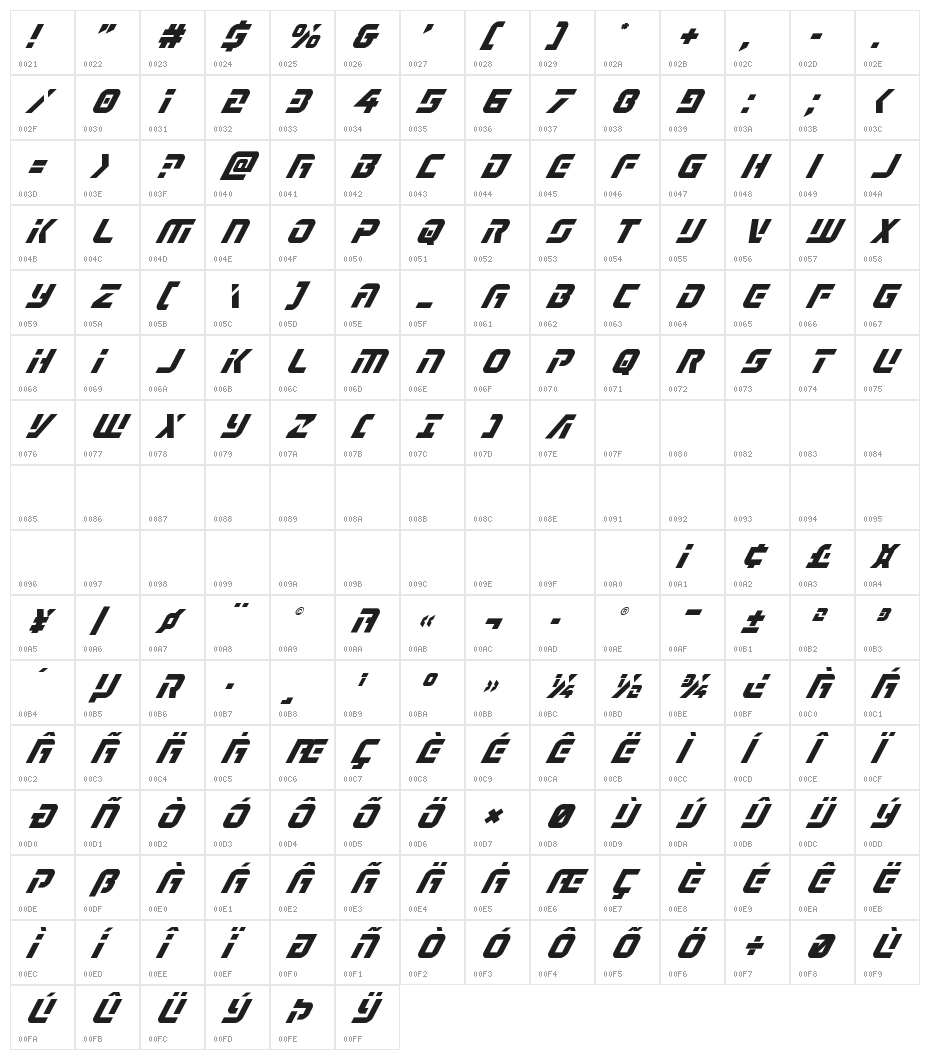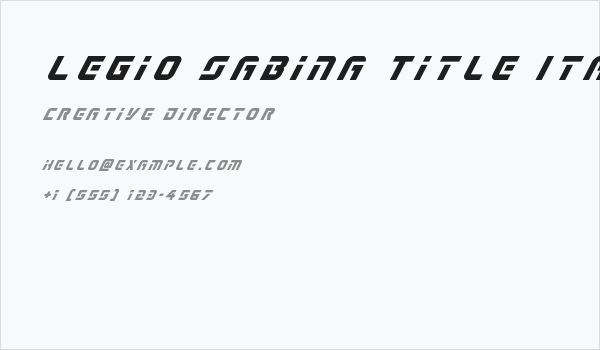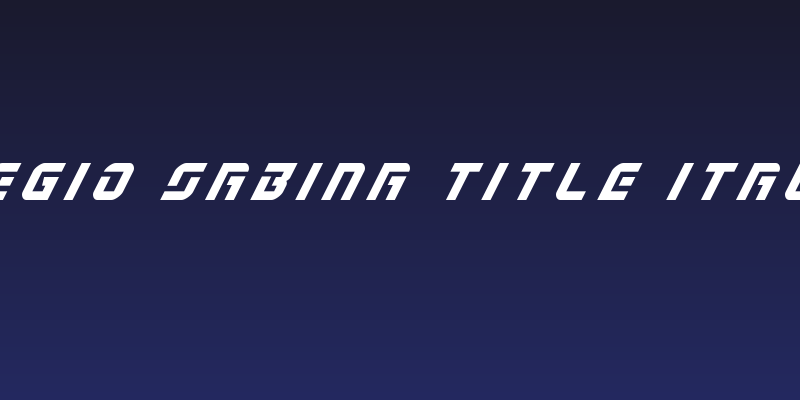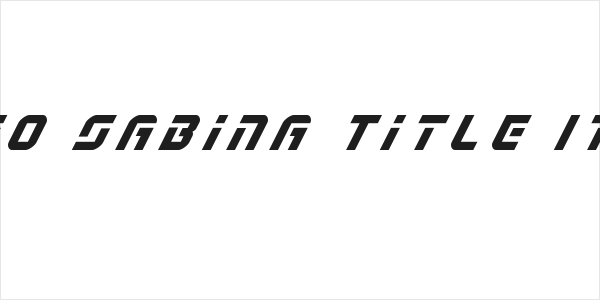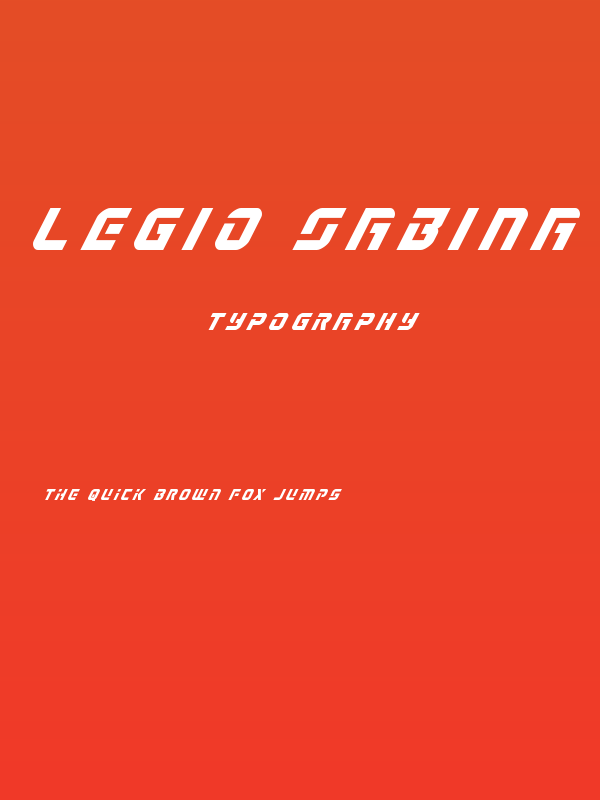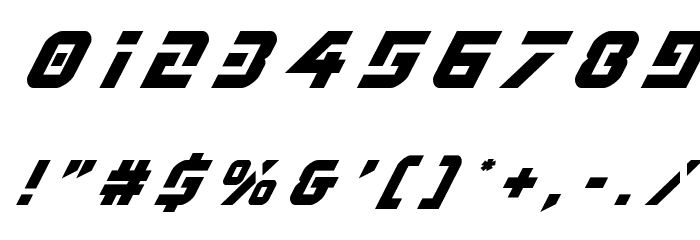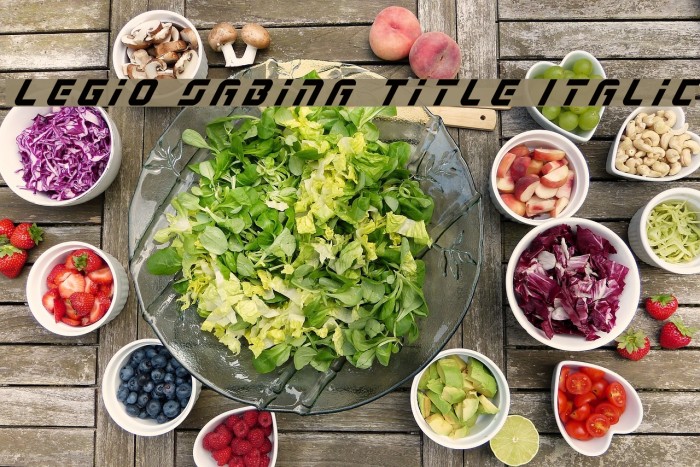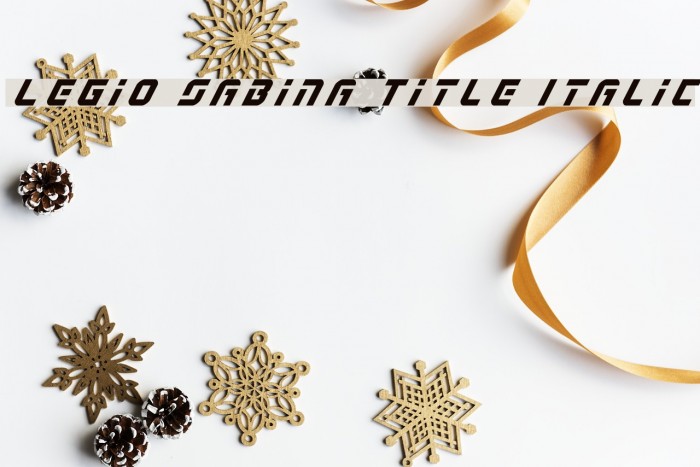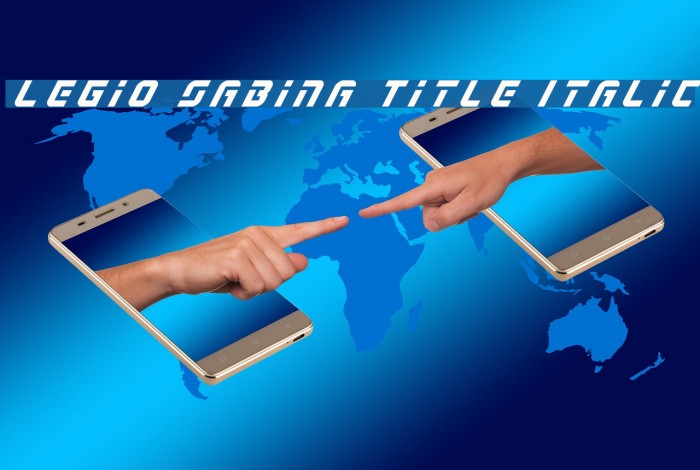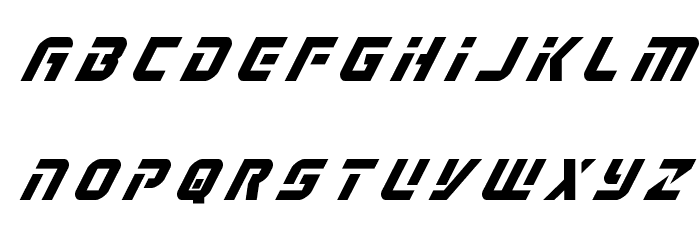
Legio Sabina Title Italic Font
Legio Sabina Title Italic Description
This font features a bold and dynamic design with a futuristic flair. The characters are italicized, giving them a sense of motion and speed. The strokes are thick and consistent, providing a strong visual impact. The angular and geometric shapes of the letters contribute to a modern and edgy appearance. The uppercase and lowercase letters maintain a cohesive style, while the numerals and special characters are designed to match the overall aesthetic. This font is ideal for projects that require a bold and contemporary look.
| Use Case | Logos, Headlines, Posters |
| Proposed Projects | Ideal for branding, sports team logos, video game titles, and tech-related designs. |